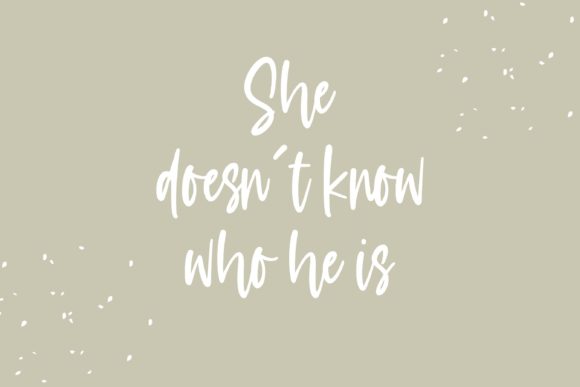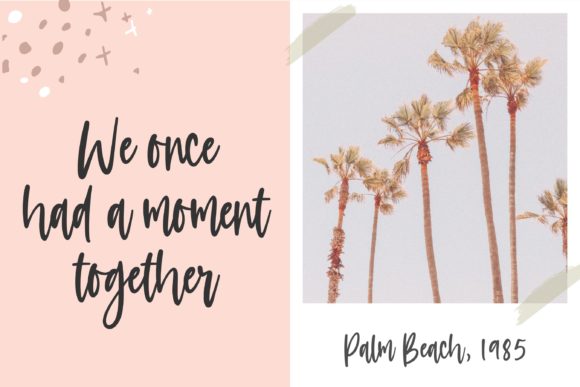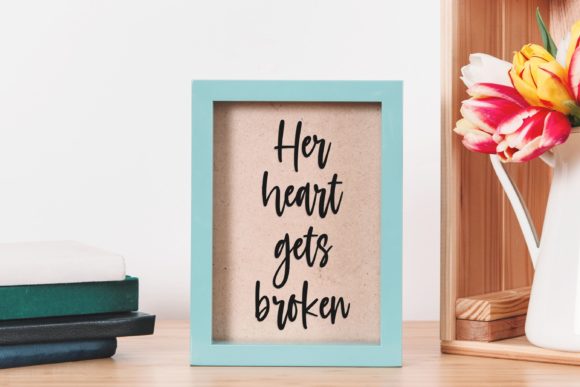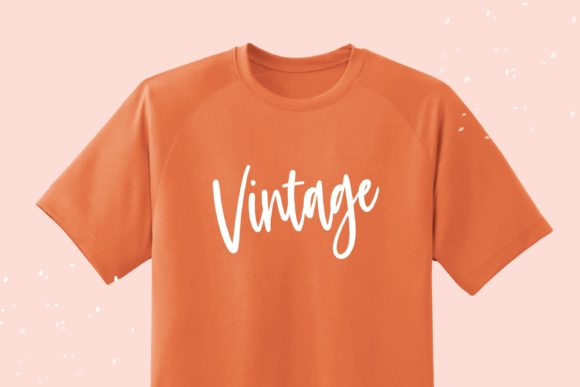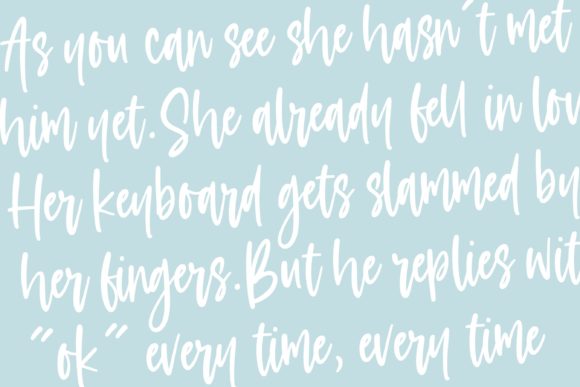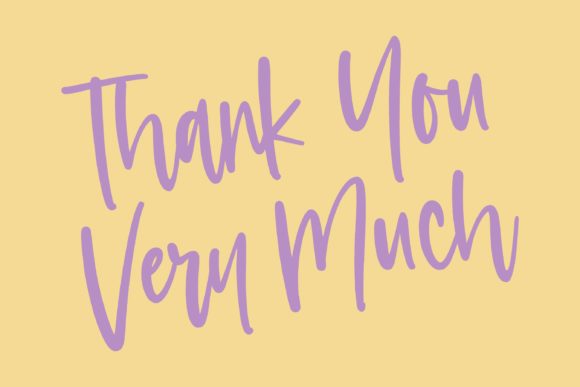
Introducing Goldmind Font: The Handwritten Font that Brings DIY Projects to Life
Are you a designer or crafter looking for a unique and authentic font to add a personal touch to your DIY projects? Look no further than Goldmind Font, a stunning handwritten font that is sure to capture the hearts of anyone who lays eyes on it. In this article, we’ll take a closer look at what makes Goldmind Font so special and how you can use it to bring your creative projects to life.
The Story Behind Goldmind Font
Goldmind Font is the result of a beautiful pairing of a brush pen and pencil, which gives it an incredibly endearing and authentic look. The font’s creator has carefully crafted each letter and character to bring out the unique textures and imperfections of handwritten writing, making it look like it was written just for you. The result is a font that is both elegant and playful, perfect for adding a personal touch to any DIY project.
What Makes Goldmind Font So Special?
So, what sets Goldmind Font apart from other fonts out there? Here are just a few reasons why this font is a cut above the rest:
- Unique and Authentic Look: Goldmind Font has a one-of-a-kind look that is sure to make your DIY projects stand out. The font’s handwritten texture and imperfections give it a warm and inviting feel that is hard to replicate with digital fonts.
- Versatile: Goldmind Font is incredibly versatile, making it perfect for a wide range of DIY projects, from crafting and scrapbooking to branding and marketing materials.
- Easily Readable: Despite its handwritten nature, Goldmind Font is surprisingly easy to read, making it perfect for use in body text as well as headings and titles.
How to Use Goldmind Font in Your DIY Projects
Now that you know a little bit more about Goldmind Font, let’s talk about how you can use it in your DIY projects. Here are a few ideas to get you started:
- Scrapbooking: Add a personal touch to your scrapbook pages with Goldmind Font. Use it to title your pages, add captions to your photos, or create beautiful journaling.
- Crafting: From knitting patterns to handmade cards, Goldmind Font is the perfect addition to any crafting project. Its unique texture and imperfections will add a touch of warmth and personality to your creations.
- Branding and Marketing: If you’re a small business owner or entrepreneur, Goldmind Font can be a great addition to your branding and marketing materials. Use it to create eye-catching business cards, flyers, and brochures that will help you stand out from the competition.
Tips for Getting the Most Out of Goldmind Font
To get the most out of Goldmind Font, here are a few tips to keep in mind:
- Experiment with Different Sizes and Colors: Don’t be afraid to experiment with different sizes and colors of Goldmind Font. Its unique texture and imperfections will look great in a variety of contexts, from large headings to small body text.
- Pair it with Other Fonts: Goldmind Font pairs beautifully with other fonts, so don’t be afraid to get creative and try out different combinations. Some great options to pair with Goldmind Font include sans-serif fonts, and other handwritten fonts.
- Use it to Add Emphasis: Goldmind Font is perfect for adding emphasis to your text. Use it to highlight important information, create eye-catching headings, or add a touch of personality to your writing.
In conclusion, Goldmind Font is a truly unique and special font that is sure to bring a touch of personality and warmth to any DIY project. Its authentic look and feel make it perfect for designers and crafters who want to add a personal touch to their creations. Whether you’re working on a scrapbook page, crafting project, or branding and marketing materials, Goldmind Font is a great choice. So why not give it a try and see the difference it can make?